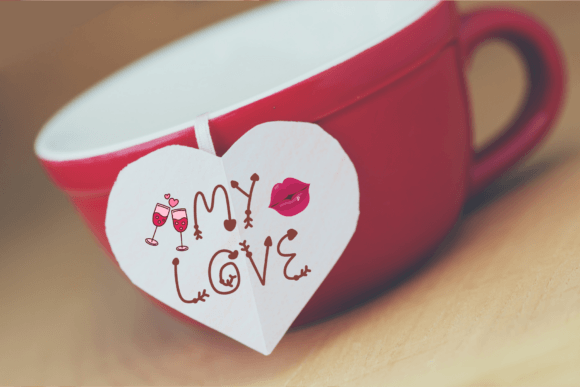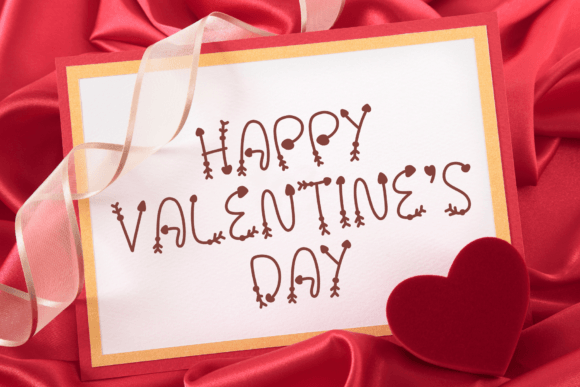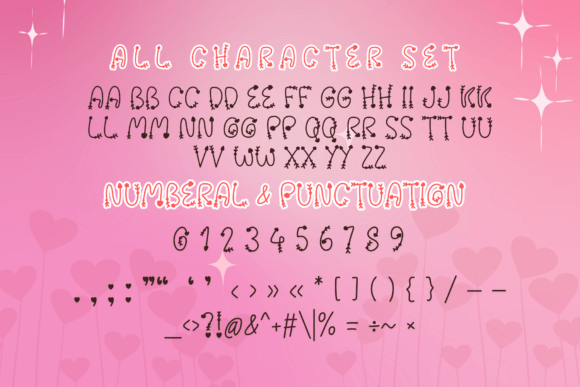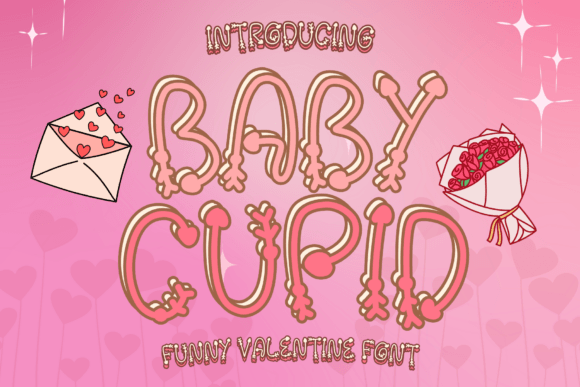
Baby Cupid Font: The Perfect Addition to Your Design Projects
Are you looking for a font that embodies playfulness and authenticity? Look no further than the Baby Cupid Font! This adorable handwritten font is perfect for a variety of design projects, from blog posts and logos to invitations and greeting cards. In this article, we’ll explore the features and benefits of the Baby Cupid Font, and show you how to make the most of this versatile and charming font.
What is Baby Cupid Font?
Baby Cupid Font is a cute and playful handwritten font that is perfect for adding a touch of whimsy to your designs. With its delicate and charming lettering, this font is sure to capture the hearts of your audience. Whether you’re creating a romantic Valentine’s Day card or a fun and playful blog post, Baby Cupid Font is the perfect choice.
Features of Baby Cupid Font
So, what makes Baby Cupid Font so special? Here are just a few of its key features:
- Playful and Authentic: Baby Cupid Font embodies playfulness and authenticity, making it perfect for designs that require a personal touch.
- Handwritten: This font is a beautiful example of handwritten lettering, with each letter carefully crafted to create a unique and charming effect.
- Versatile: Baby Cupid Font can be used for a wide range of design projects, from blog posts and logos to invitations and greeting cards.
- Easy to Read: Despite its playful nature, Baby Cupid Font is easy to read and understand, making it perfect for designs that require a clear and concise message.
Benefits of Using Baby Cupid Font
So, why should you choose Baby Cupid Font for your design projects? Here are just a few of the benefits of using this charming font:
- Adds a Personal Touch: Baby Cupid Font adds a personal touch to your designs, making them more relatable and engaging.
- Creates a Unique Look: With its delicate and charming lettering, Baby Cupid Font creates a unique look that sets your designs apart from the rest.
- Perfect for Valentine’s Day and Love-themed Designs: As a font that embodies playfulness and romance, Baby Cupid Font is perfect for Valentine’s Day and love-themed designs.
- Easy to Use: Baby Cupid Font is easy to use and can be easily integrated into your design projects.
How to Use Baby Cupid Font
Using Baby Cupid Font is easy! Here are a few tips to get you started:
- Choose the Right Size: Choose a size that is easy to read and fits your design.
- Experiment with Colors: Experiment with different colors to find the one that best fits your design.
- Pair with Other Fonts: Pair Baby Cupid Font with other fonts to create a unique and interesting effect.
- Use for Headings and Titles: Use Baby Cupid Font for headings and titles to add a touch of whimsy to your designs.
Design Ideas Using Baby Cupid Font
So, what can you create with Baby Cupid Font? Here are a few design ideas to get you started:
- Valentine’s Day Cards: Create romantic Valentine’s Day cards with Baby Cupid Font.
- Blog Posts: Add a touch of whimsy to your blog posts with Baby Cupid Font.
- Logos and Branding: Use Baby Cupid Font to create a unique and charming logo or branding.
- Invitations: Create playful and fun invitations with Baby Cupid Font.
- Greeting Cards: Use Baby Cupid Font to create a variety of greeting cards for special occasions.
In conclusion, Baby Cupid Font is a charming and versatile font that is perfect for a wide range of design projects. With its playful and authentic nature, this font is sure to capture the hearts of your audience. Whether you’re creating a romantic Valentine’s Day card or a fun and playful blog post, Baby Cupid Font is the perfect choice. So why not give it a try and see the results for yourself?